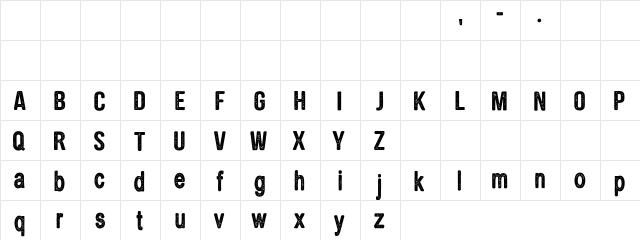
CF Brothers in Arms PERSONAL Regular
Design Context for CF Brothers in Arms PERSONAL Typeface
CF Brothers in Arms PERSONAL is a composed and adaptable typeface that performs quietly and consistently across a wide range of design contexts.
Pro Tip: Pair CF Brothers in Arms PERSONAL with a font of contrasting weight or personality to build a more expressive typographic hierarchy.